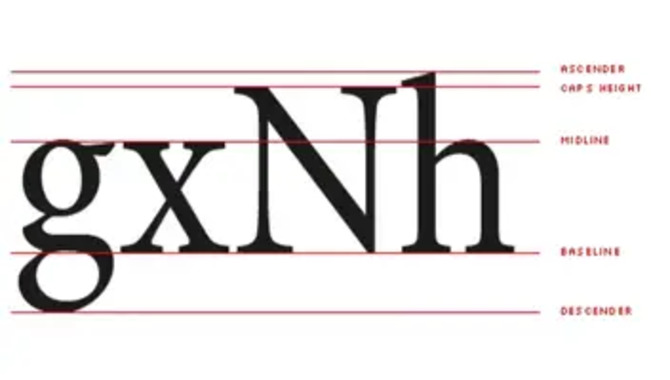
what did you know about What is a 12 point font? As we delve deeper into the world of typography, we come across the term “12 point font” quite often.
From print to digital media, this font size seems to be a go-to for many designers and writers. But what exactly does it mean? We’ll explore the intricacies of a 12 point font’s intricacies, history and applications in design and writing. Firstly, let’s define what a point is.
A point is a typographic unit of measurement handy to determine a font’s size. One point is equivalent to 1/72 of an inch, which means a 12 point font is 12/72 or 1/6 of an inch in height. This may seem small, but it is considered the standard font size in many industries, including publishing and academia.
What Is A 12 Point Font – An Overview
What did you know What is a 12 point font? A 12-point font is a typeface that is common in various documents, including academic papers, business letters, and other written communications. It refers to the size of the characters or letters in the font, with each character being 12 points or 1/6th of an inch in height.
This typeface is the most readable and standard font size for printed materials. The baseline to the top of the tallest letter in the font, typically the letter measures the font size and varies depending on the font style.
Understanding Font Size
Understanding font size is an important aspect of document formatting and design. We refer to the height of characters in a particular font family as the font size and measure it in points. Typography commonly uses a point as a unit of measurement, where 1 point equals 1/72nd of an inch.
So, when we talk about a 12-point font, it means that the height of the characters in that font family is 1/6th of an inch. This is a standard size for body text in printed documents, and it is easy to read without being too large or too small.
Definition Of A 12-Point Font
A 12-point font is a standard size for printed materials in the United States. It refers to the height of the characters in a font, which is measured in points. One point equals 1/72 of an inch, so a 12-point font has characters that are 1/6 of an inch in height. People commonly use this size in books, magazines, and other printed materials because it balances readability and space efficiency, making it easy to read.
Visual Representation Of A 12-Point Font
A 12-point font is a common size handy in printed materials. It refers to the size of the letters and characters in a font, each point being approximately 1/72 of an inch. Selecting the appropriate font size is important for readability and visual appeal when writing a paper or creating a document. Most people find a 12-point font easy to read and consider it a standard size.
However, the visual representation of a 12-point font can vary depending on the specific font chosen. Some fonts may appear thinner or thicker than others of the same size, and the spacing between letters can also affect how a font appears on the page. It’s important to consider the overall visual effect of a font when choosing a size and style.
Practical Applications Of A 12-Point Font
The printing and publishing industry calls for a font size that measures 12 points in height, where a point is a unit of measurement, a 12-point font. One can use this font size in typography for many practical applications. One of the most commonly used font sizes is highly versatile.
A 12-point font is easy to read, clear, and legible for printed materials, digital content, or presentations. It is especially useful for documents with a lot of text, as it allows for a comfortable reading experience without straining the eyes. People often use it in books, newspapers, and academic papers.
Considerations And Adjustments
When it comes to formatting documents, choosing the right font size is an important consideration. One of the most commonly used font sizes is 12 point font. But what exactly is a 12 point font? Simply put, it refers to the size of the letters in a font.
Specifically, a 12-point font means that each letter is 1/6 of an inch tall, or approximately 4.23 millimetres. However, it’s important to note that not all fonts of the same size appear equal; some may appear larger or smaller than others.
Conclusion:
What is a 12 point font you know already. A 12 point font is a standard font size used for professional documents. 12 point font refers to the size of a typeface in printing. It is considered the easiest font size to read and is commonly used in academic papers, business reports, and legal documents.
It is a standard size widely handy in most documents, including academic papers, business reports, and legal documents. Choosing the right font size is essential for creating a professional, readable document that effectively conveys your message. Whether printing or creating documents digitally, using a 12-point font ensures your content is clear and easy to read.
4.Is A 12-Point Font Size The Same Across All Typefaces?
Ans: No, a 12-point font size does not necessarily look the same across different typefaces. The visual appearance can vary due to letterforms, spacing, and overall design differences.
5.Where Is A 12-Point Font Commonly Used?
Ans: A 12-point font is commonly used in various printed materials such as books, newspapers, and documents. It is also prevalent in digital media like websites, presentations, and emails.